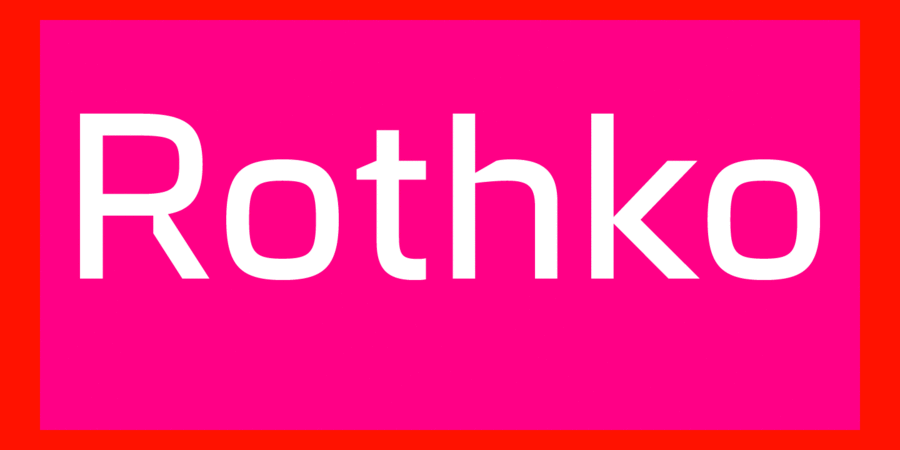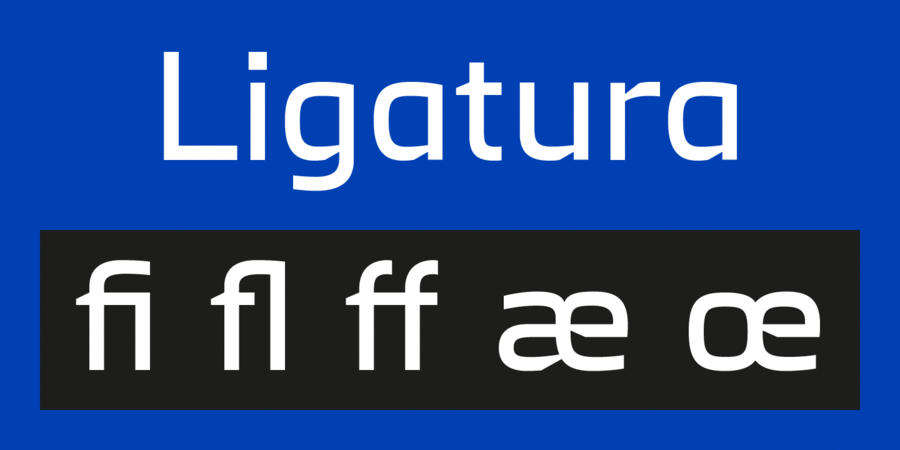
Rothko is a strict, static sans serif. It’s ovals are noticeably straightened. The smooth shape of the letters contrasts with the clear rhythm of the test. A striking emphasis is placed on the connection of diagonal strokes. The font contains a standard set of Latin and Cyrillic alphabets, mathematical symbols, standard ligatures, and also a ligature for the Ukrainian "її" pair. Rothko is designed for poster slogans and bright headlines. The typeface was developed by Alexey Popovtsev in 2018.